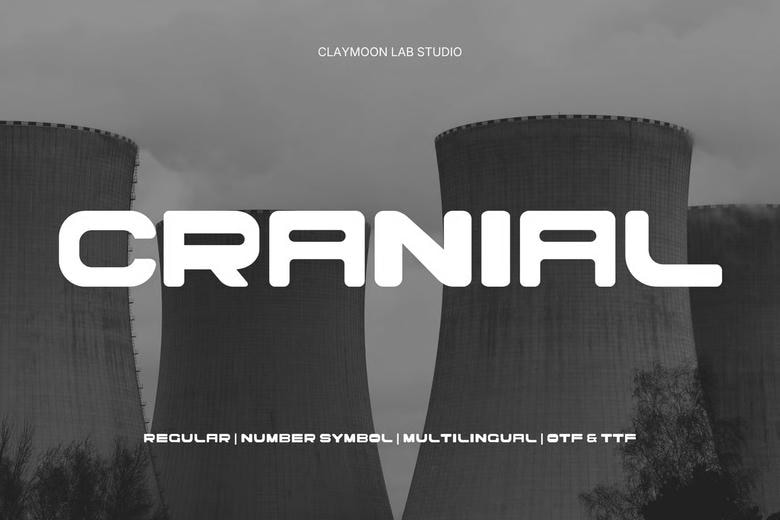
Cranial is a bold, futuristic display typeface that combines rounded letterforms with sharp inline cutout details. This mix creates a look that feels industrial, technological, and modern.
Its wide, heavy design stands out at any size. The unique horizontal slot terminals add a mechanical precision that makes Cranial different from other rounded sans-serif fonts.
Cranial works well for everything from editorial spreads with a dark mood to modern tech branding. Its strong style helps headlines stand out.
Cranial is versatile. It fits both dark, gritty designs and clean, minimal layouts, making it a useful choice for many types of creative projects.
Cranial Display Font